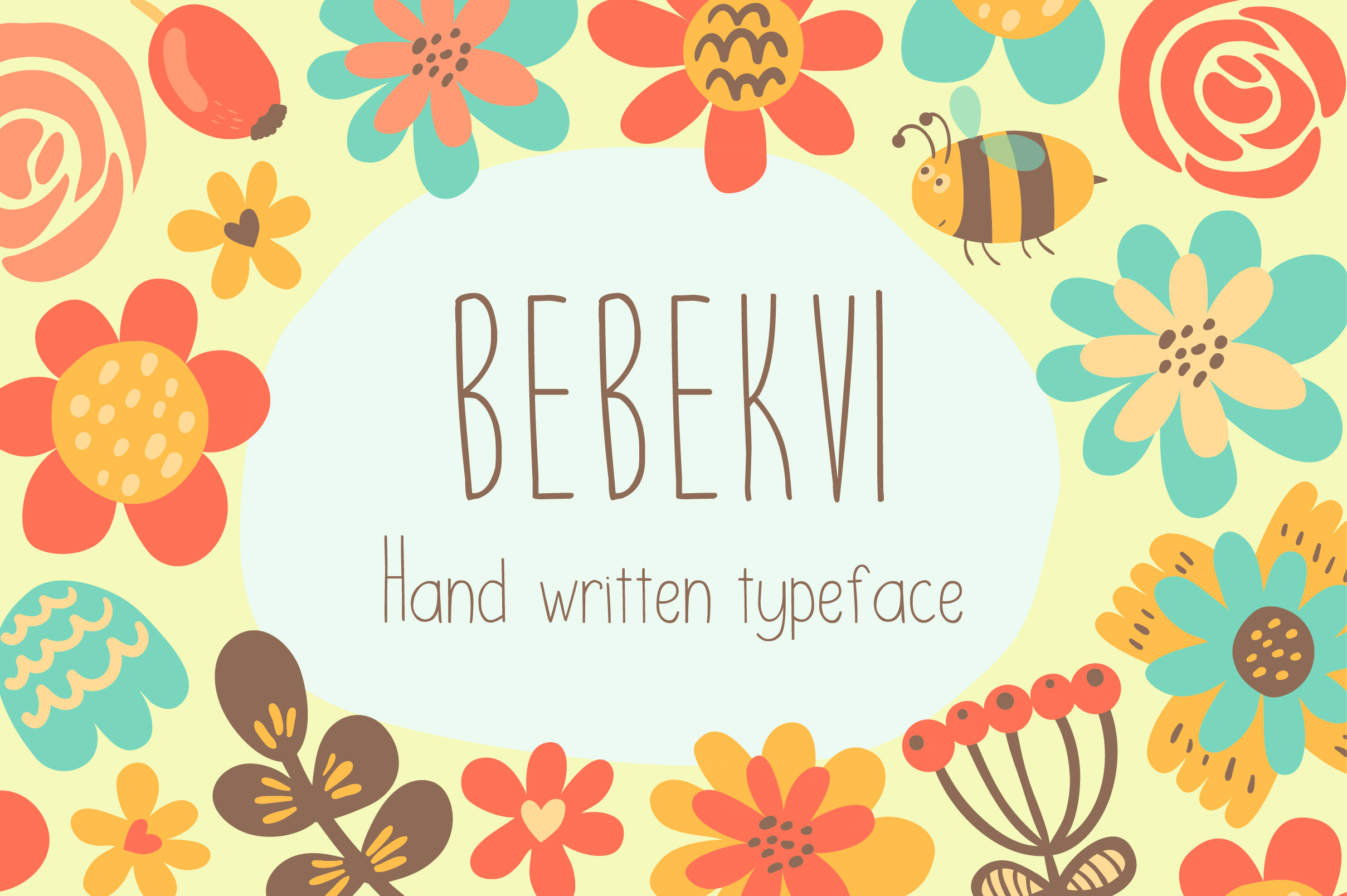
Bebekvi TTF hand written typeface
Bebekvi is cute hand written TTF typeface by Veronika Kapralova
Font includes capital letters, lowercase letters, numbers and punctuation.